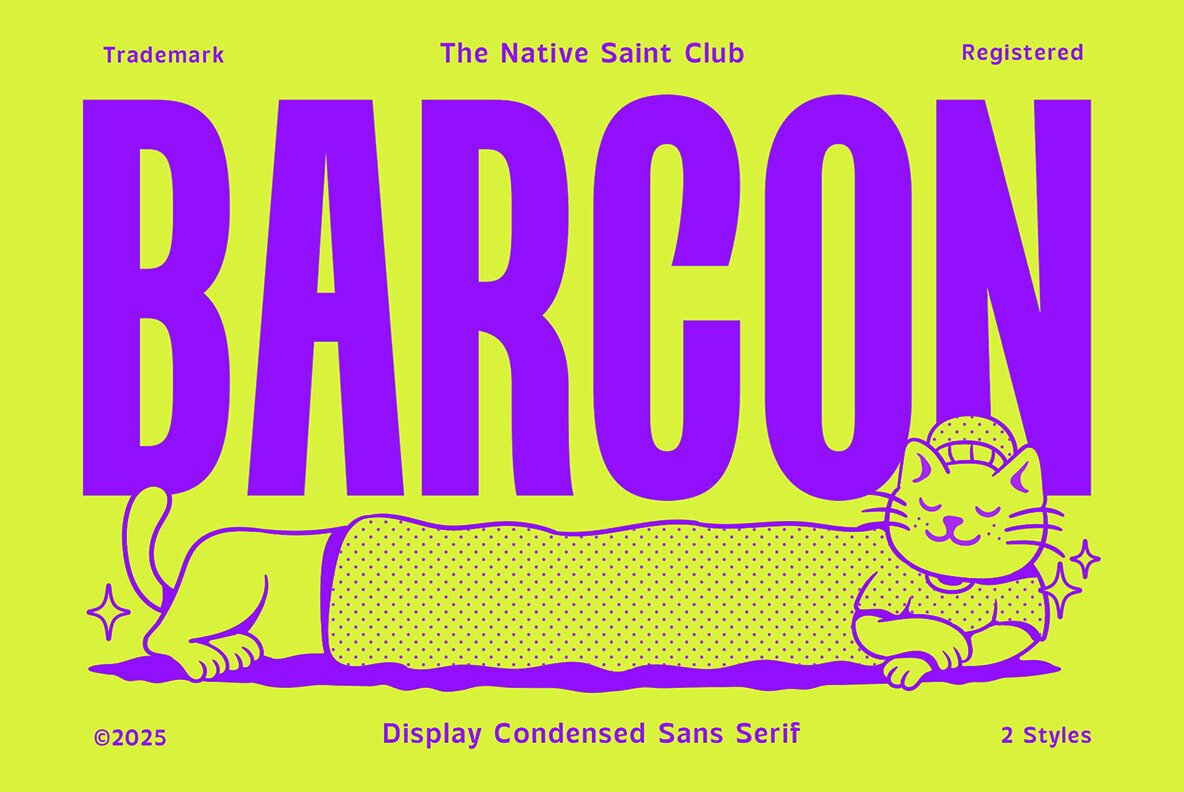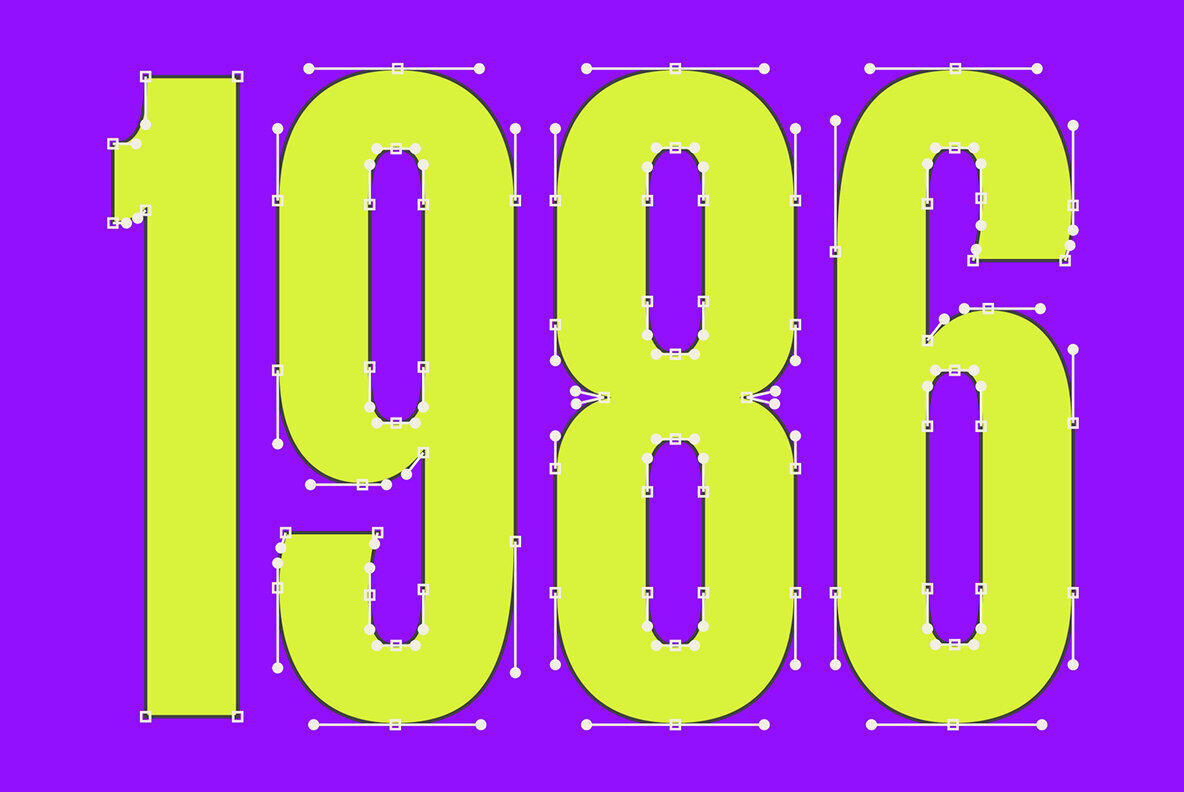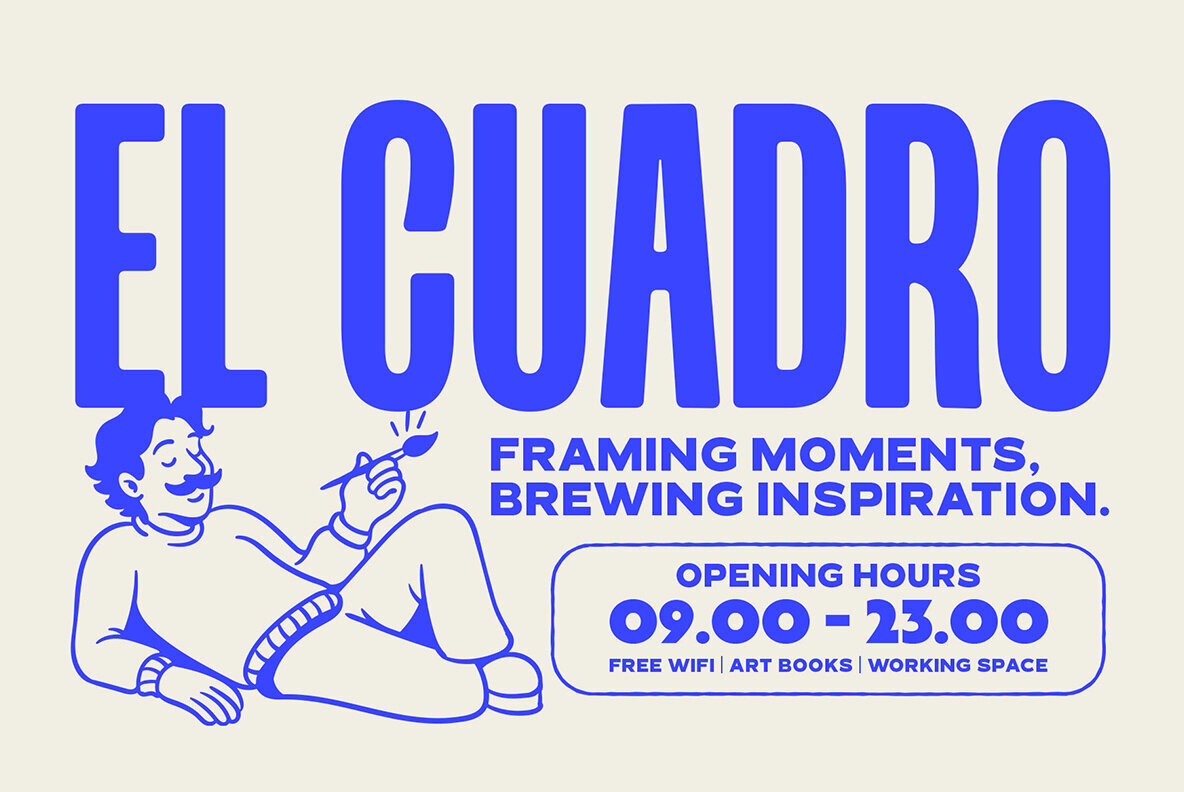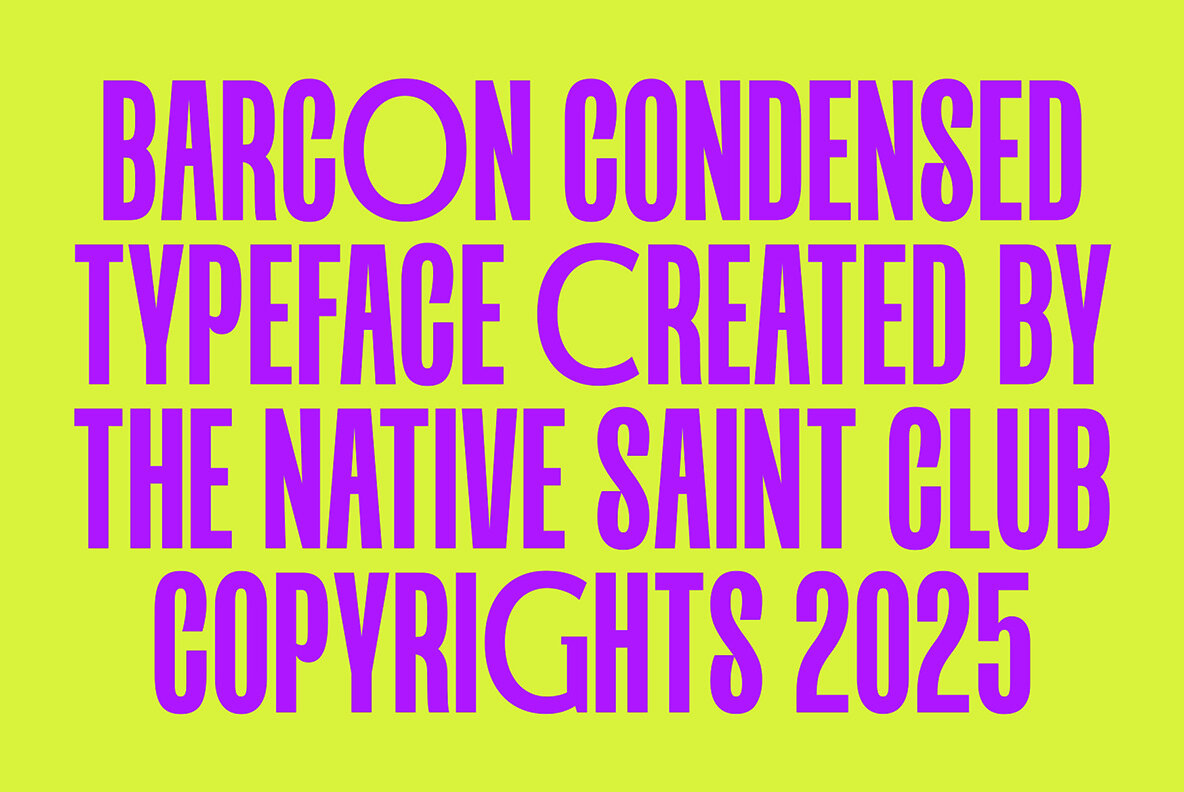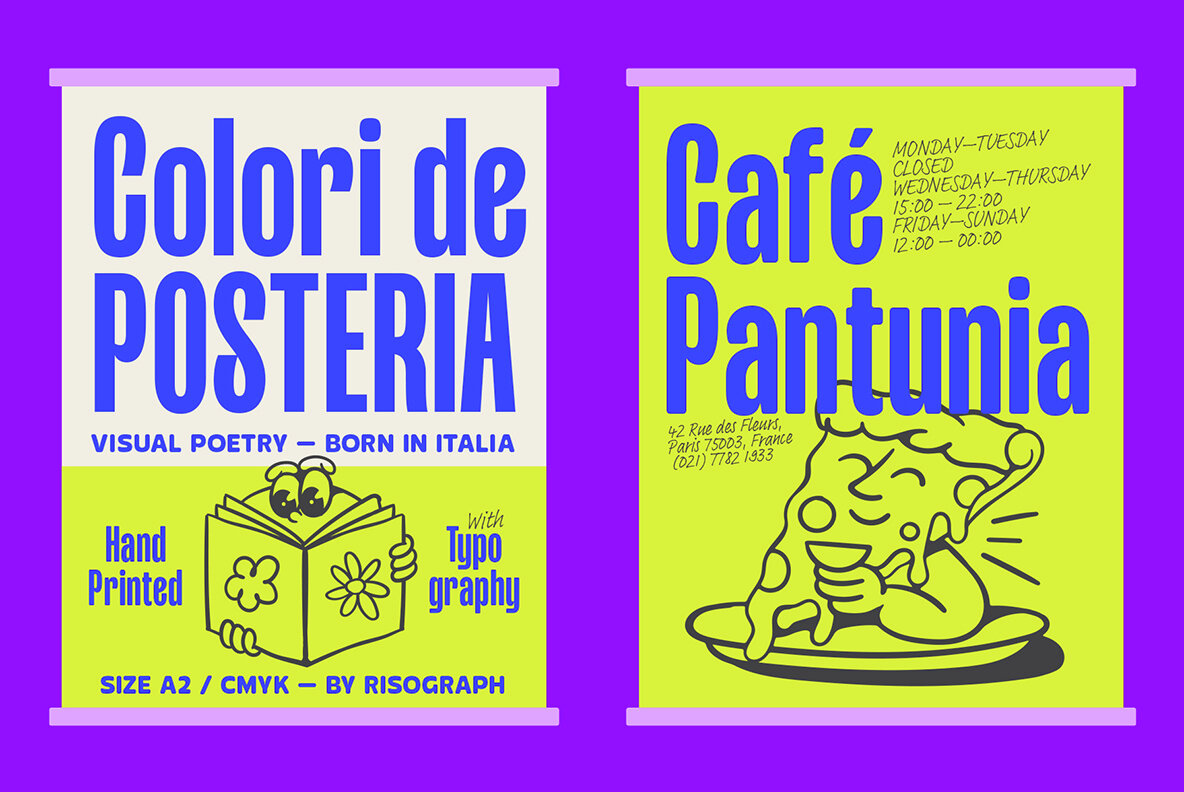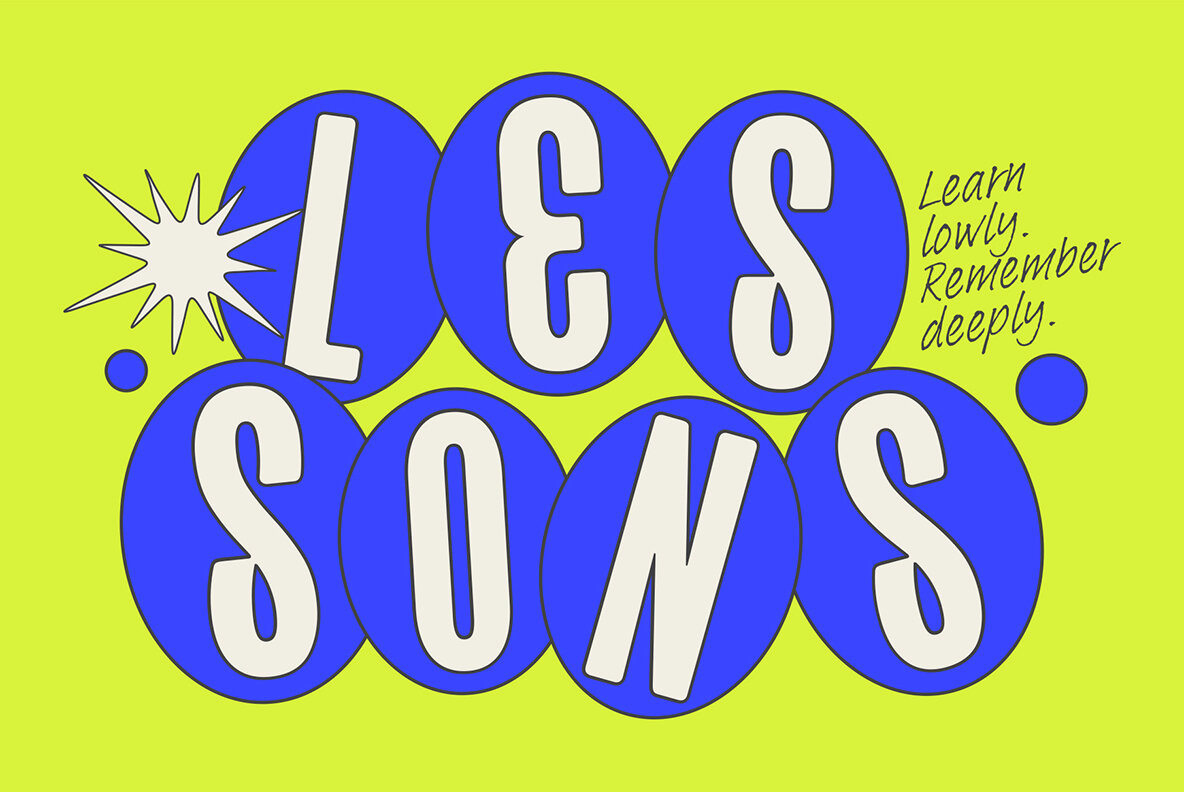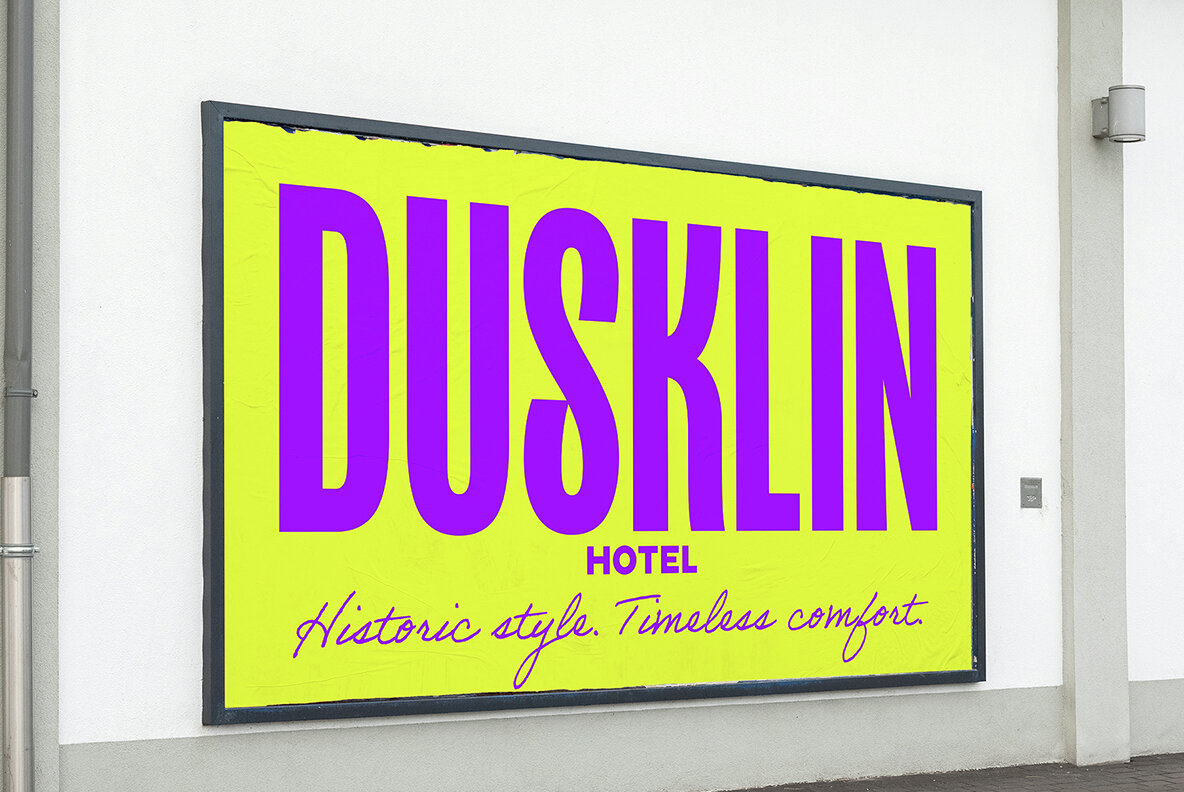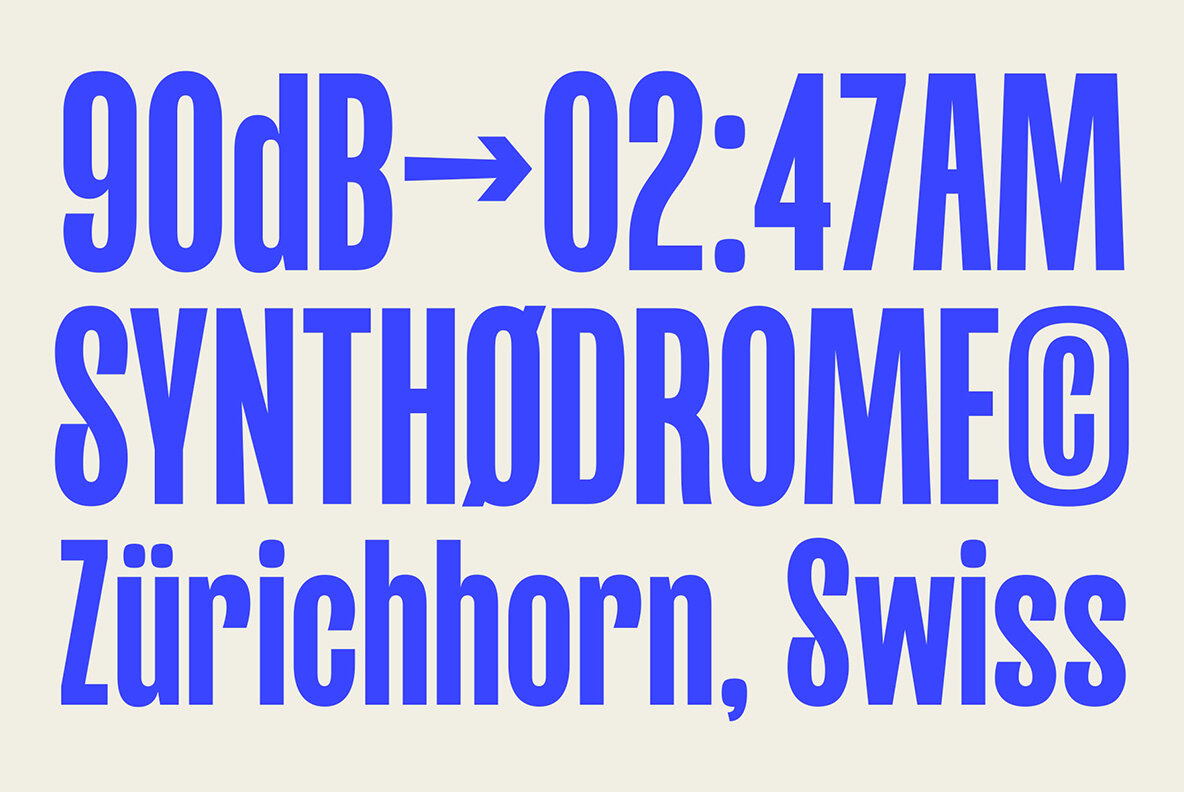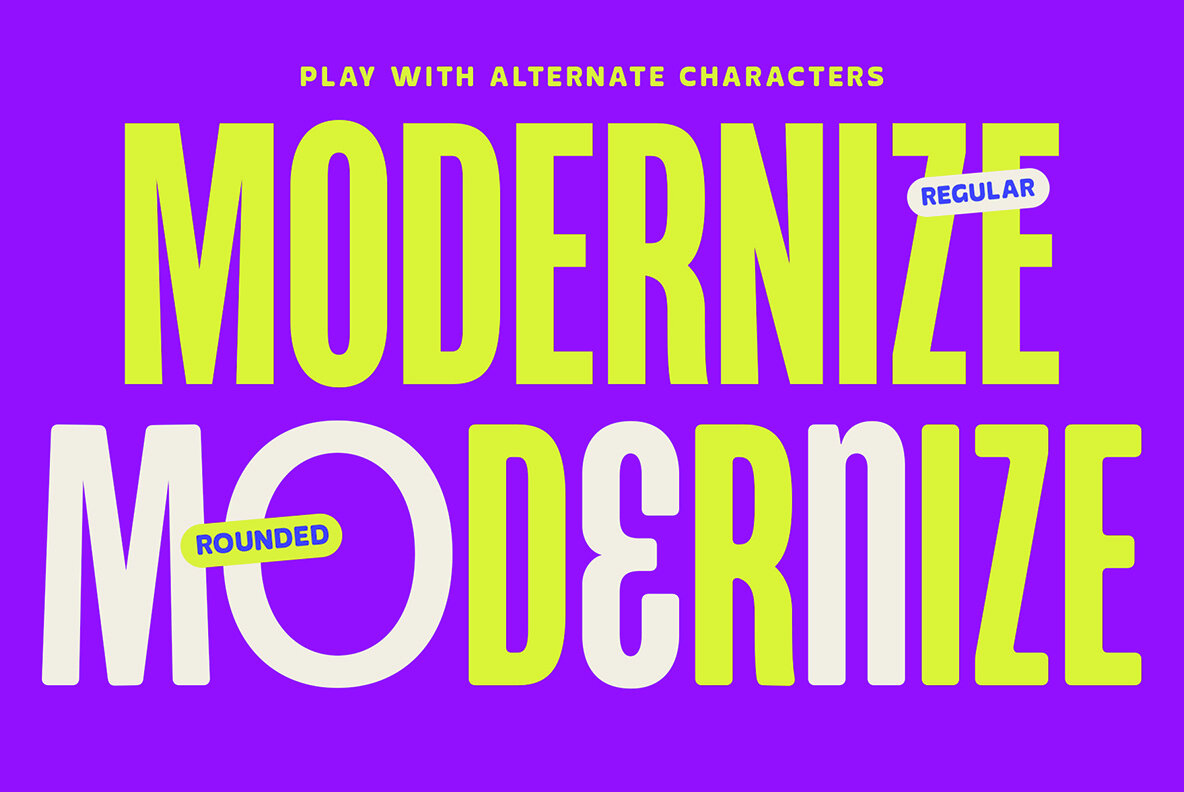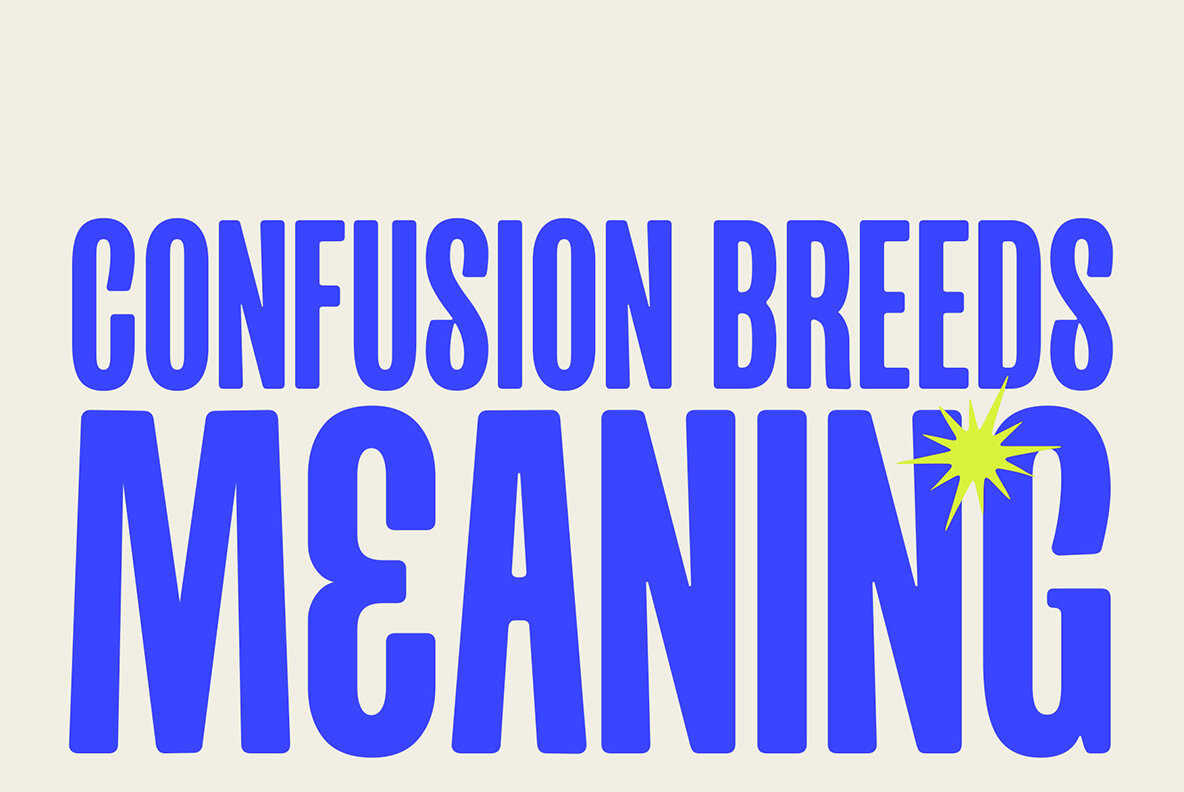
Barcon Font
Barcon Regular
Barcon Rounded
TNSC Barcon presents a sharp and stylish aesthetic with its condensed sans serif design. Crafted with precision, it features clean lines and a minimalist touch, making it an ideal choice for bold headlines, standout titles, and sleek layouts where space is at a premium. Features:TNSC Barcon: Sleek, Modern Condensed Sans Serif